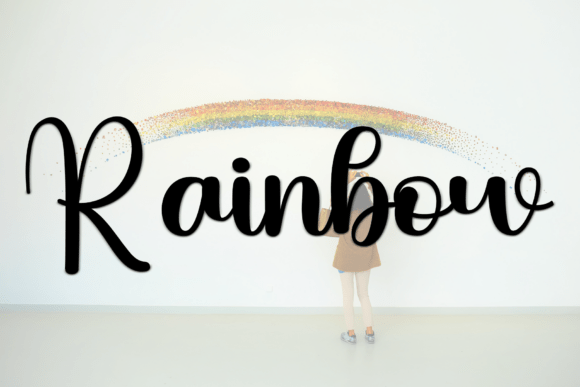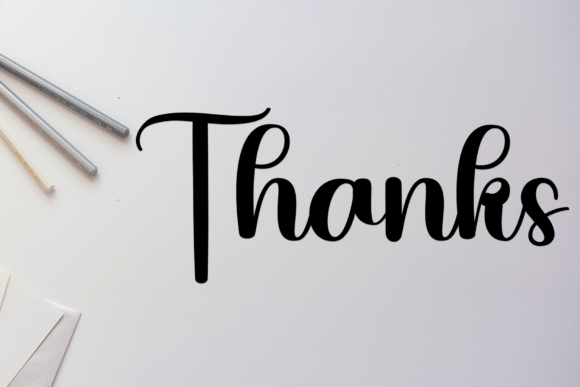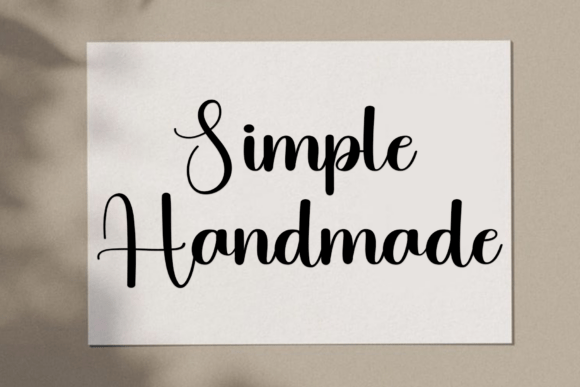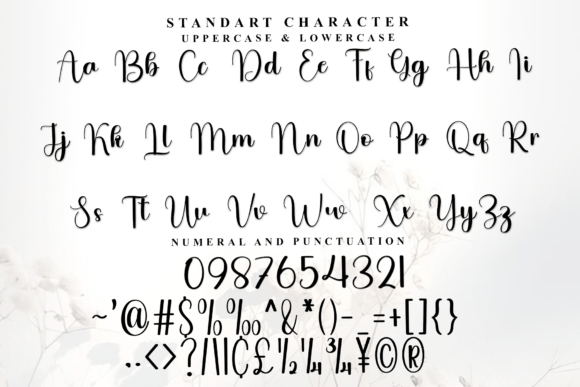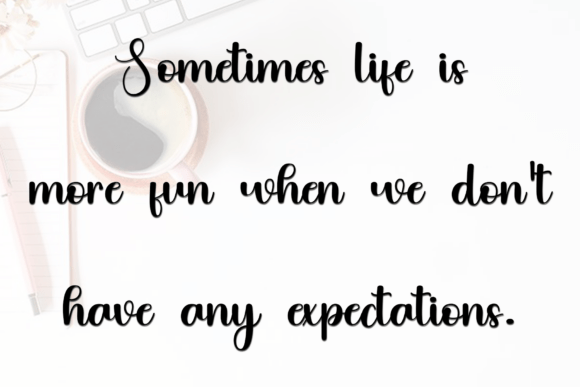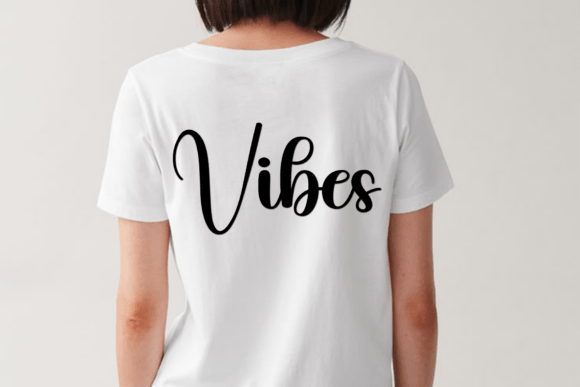
The Birth of a Creative Masterpiece
Imagine the excitement of holding a pen and letting your imagination flow onto paper. The rush of creativity as you sketch out an idea, and the satisfaction of seeing it come to life. This is the magic of creating something truly unique, and it’s exactly what the Creative Signature Font is designed to capture.
With its soft, unique touch and distinctive strokes, the Creative Signature Font is the perfect tool for designers looking to add a personal touch to their work. This versatile font is not just a means of communication, but a way to express oneself and leave a lasting impression. Whether you’re working on a design project, crafting a special gift, or simply looking to elevate your personal style, the Creative Signature Font is an invaluable asset that will take your creative endeavors to the next level.
Creative Signature Font Key Features
- Font Style: A unique, handwritten font with a touch of elegance and sophistication, perfect for personal signatures or branding.
- Unique Characteristics: The font features subtle variations in letterforms, giving it a natural, hand-written feel that sets it apart from other fonts.
Designer Review: Creative Signature Font
Overall, I think the Creative Signature Font has some great qualities that make it a solid addition to any designer’s toolkit. Here are some of the things that work well:
- ✨ Unique and stylish design that’s perfect for adding a touch of personality to your designs.
- ✨ Wide range of ligatures and swashes that add an extra layer of sophistication.
- ✨ Well-spaced and balanced characters that make it easy to read.
- ⚠️ Limited language support, which may be a problem for designers working with clients who need text in multiple languages.
- ⚠️ Some characters may be too ornate or fussy, which could be overwhelming in certain designs.
- ⚠️ Not ideal for small text sizes, as the characters may become difficult to read.
Overall, I think the Creative Signature Font is a great choice for designers who want to add a touch of elegance and sophistication to their designs. While it’s not perfect, its strengths far outweigh its weaknesses, and it’s definitely worth considering for your next project.